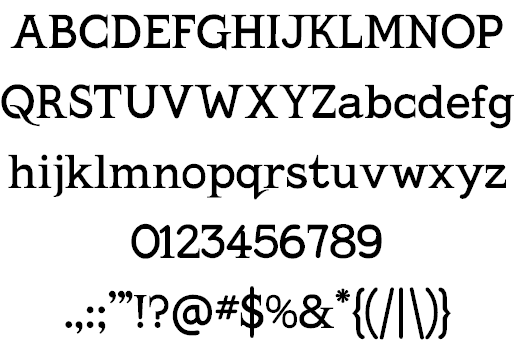
Free Kingthings Serifique Font
Introducing you to the absolutely beautiful free kingthings serifique font. Font Space has created this amazing and beautiful typeface. You can create a professional designs with this fancy font.